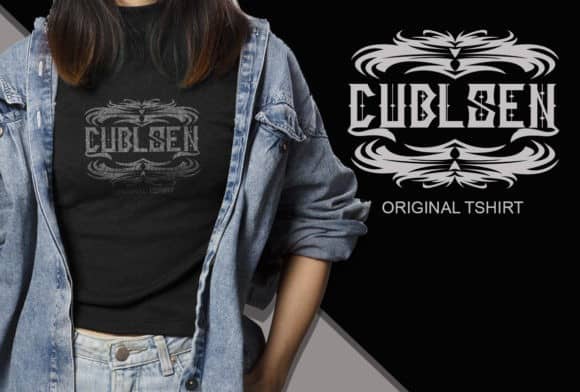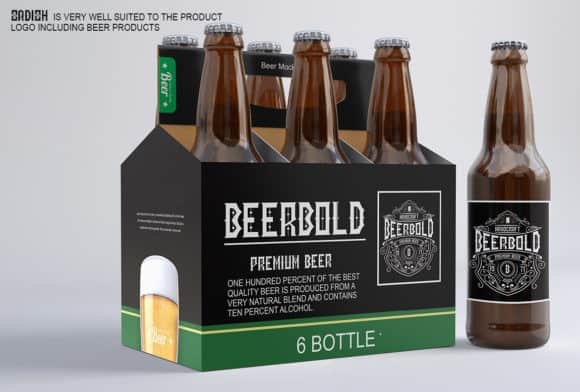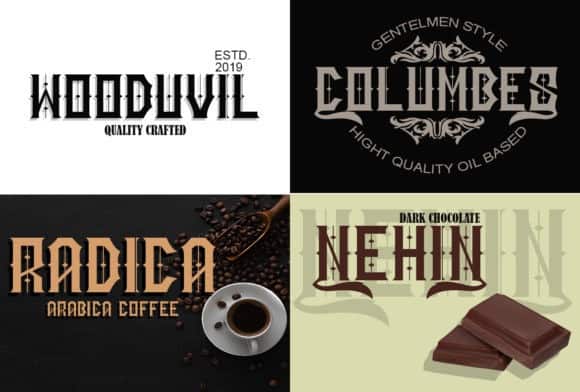
Sadish Blackletter Font
Sadish Blackletter Font is a modern blackletter typeface with bend serifs. The font is perfect to use in any alcohol labels, retro style logos, luxury identity, etc. Made from font designer named Sealoung. It’s a great blackletter font. It features a unique feel and look that makes it perfect for creating outstanding designs. Use Sadish for logos, branding, tattoo design, lettering and much more!